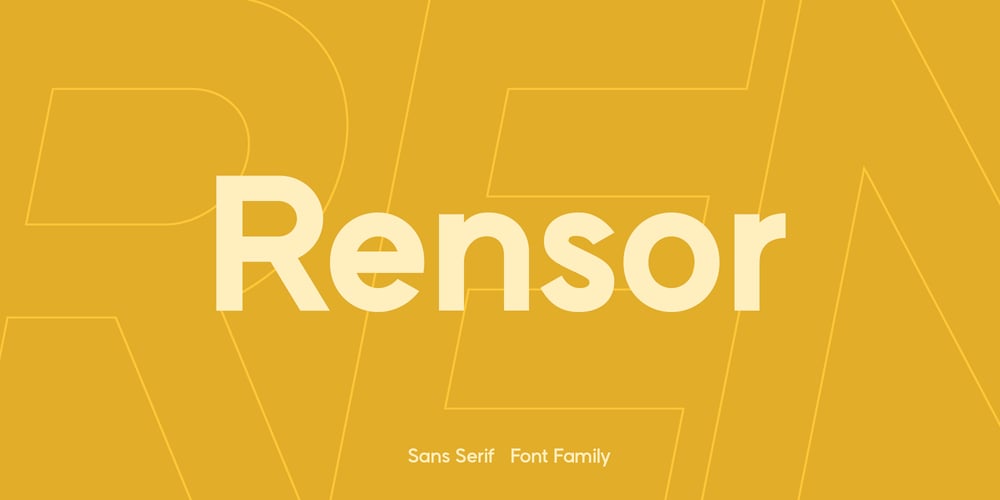
Rensor
Rensor font
Rensor Font Family was designed by Stanislav Hatznik and published by Smartfont. Rensor contains 3 styles and family package options. Rensor is an three weight modern geometric typeface, designed to be an easy go-to for branding, web, and print design projects.Each form is pared down to its essentials, so it’s extremely versatile and can blend in or stand out as much as you choose.With it, you can create logos, labels, use in advertising, branding, packaging, magazines and book covers, posters, banners, headings, descriptions and much more. This font is easy to use has OpenType features.